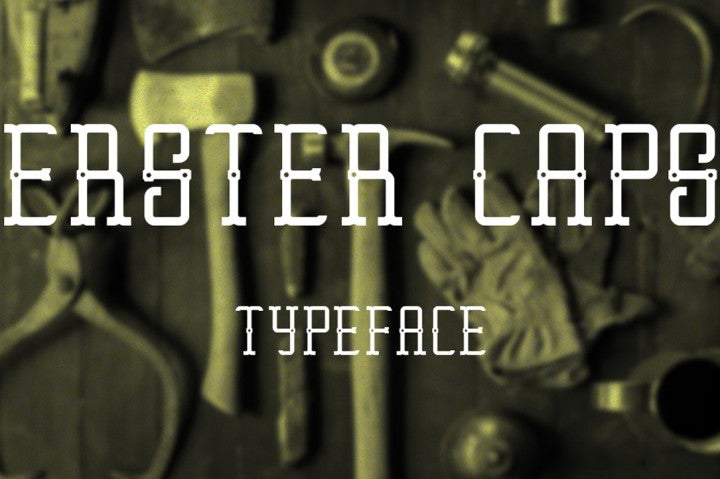
Download and enjoy this free erster font. Cool typeface to showcase your designs in a modern way. This free typeface file was found from the amazing source called The Hungry JPEG. You can create a professional designs with this cool font.